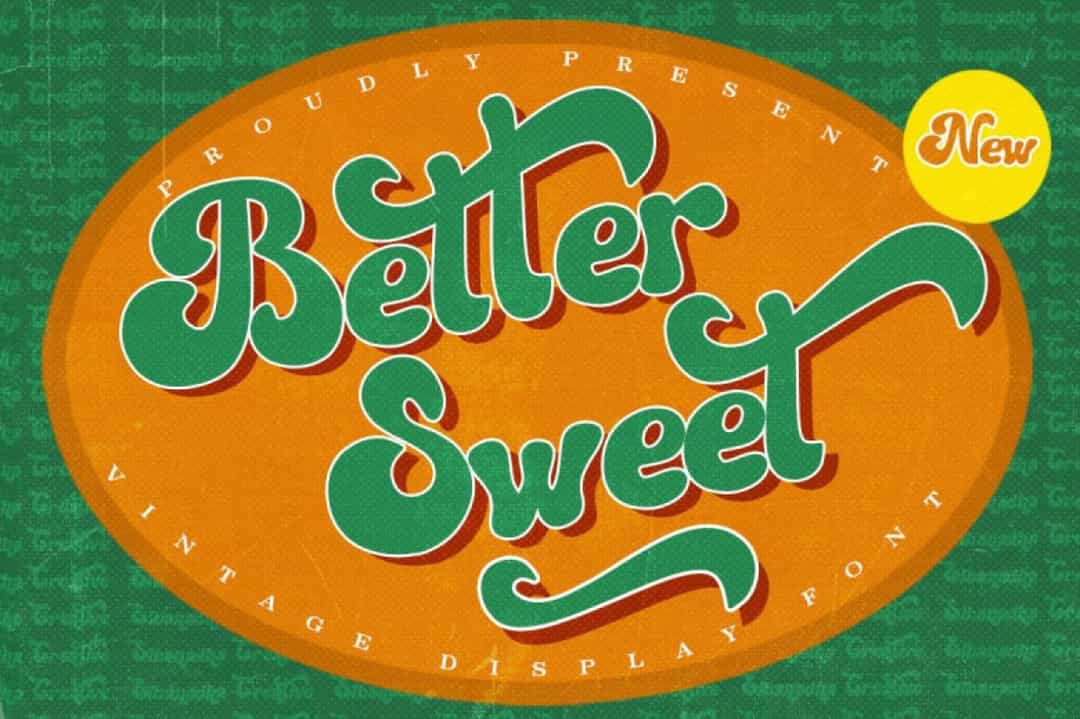
Better Sweet is an old-fashioned display font designed to meet a range of design projects, from logos and branding designs for homeware packaging and products such as mugs to posters, quotes shopping bags T-shirt covers for books greeting cards invitation cards watermarks special occasions special projects that require great taste and beauty.